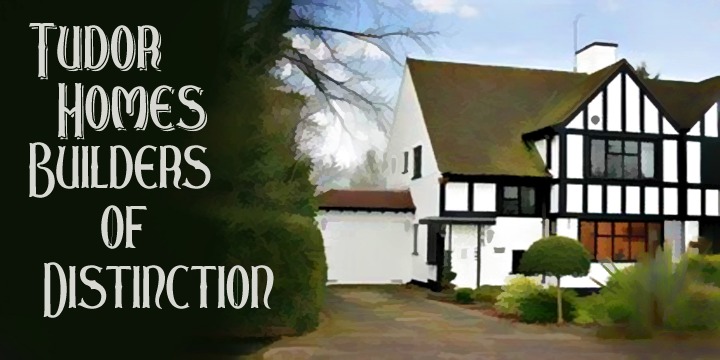
London Court is a family of three ‘Tudor Revival’ display faces, inspired by an inscription seen underneath a clock in a splendid Tudor revival arcade in Perth, Western Australia. The resulting typeface designs are similarly ‘Tudor Revival’ or if you prefer ‘Tudorbethan’- Roman with Blackletter details. Ideal for creating headings and posters which have an 'Olde-Worlde' feel with modern legibility.
London Court
London Court Wide
London Court Embossed